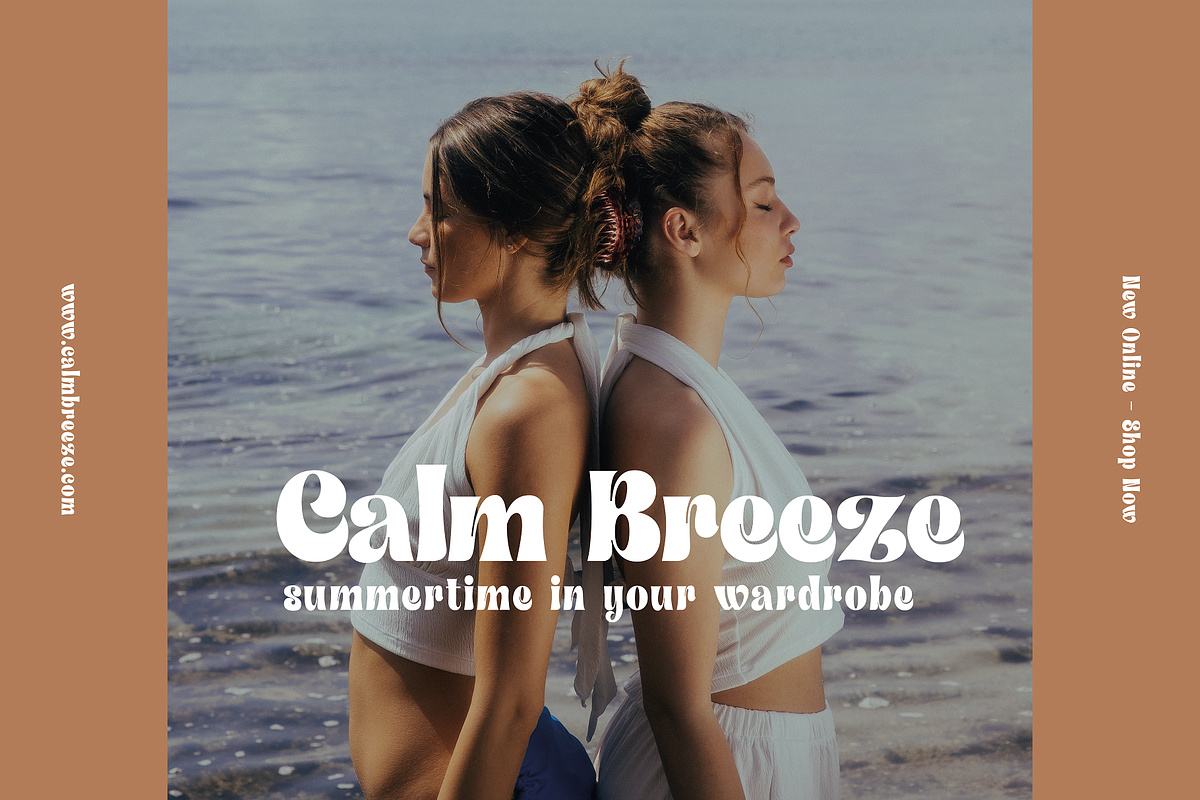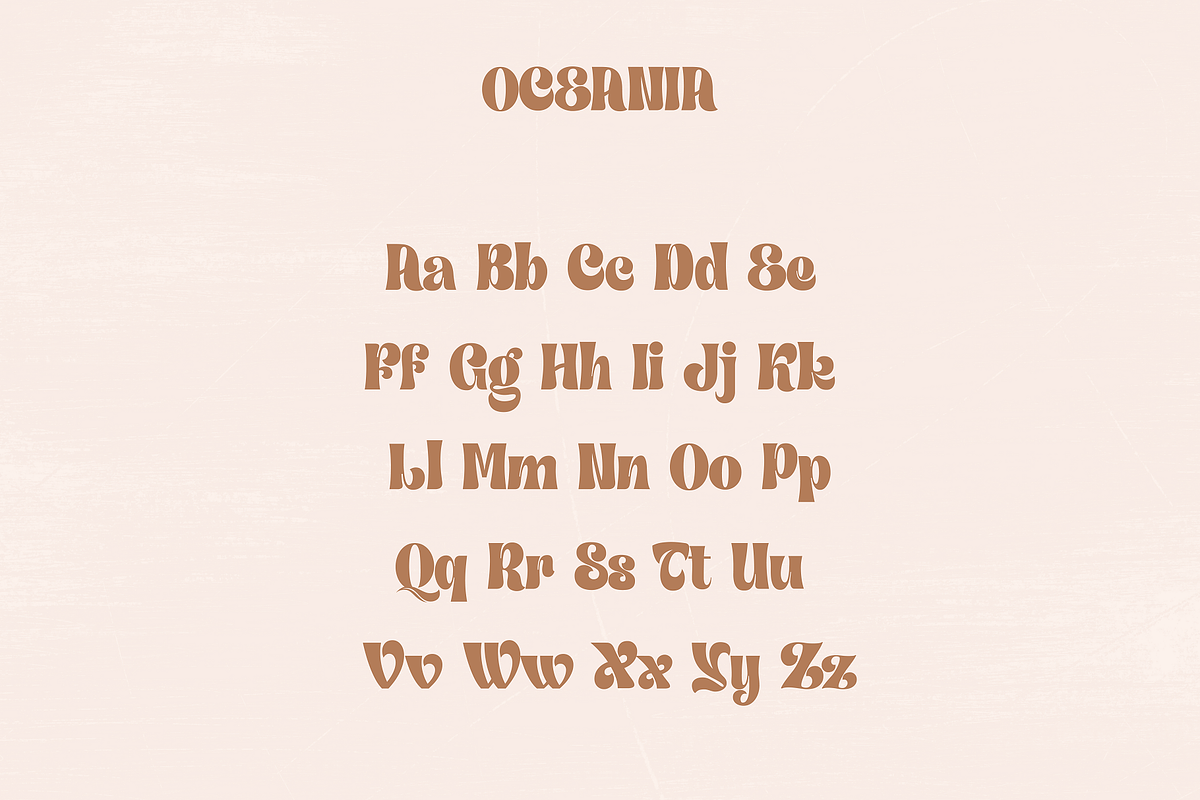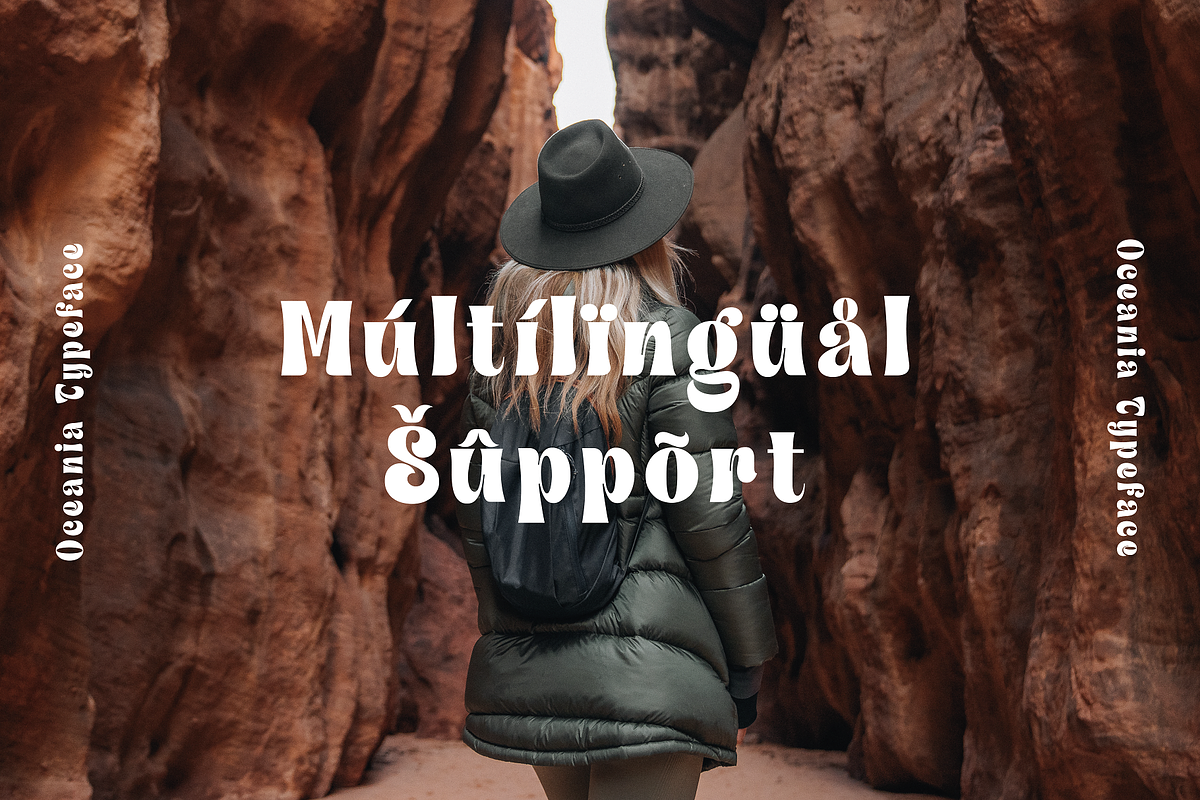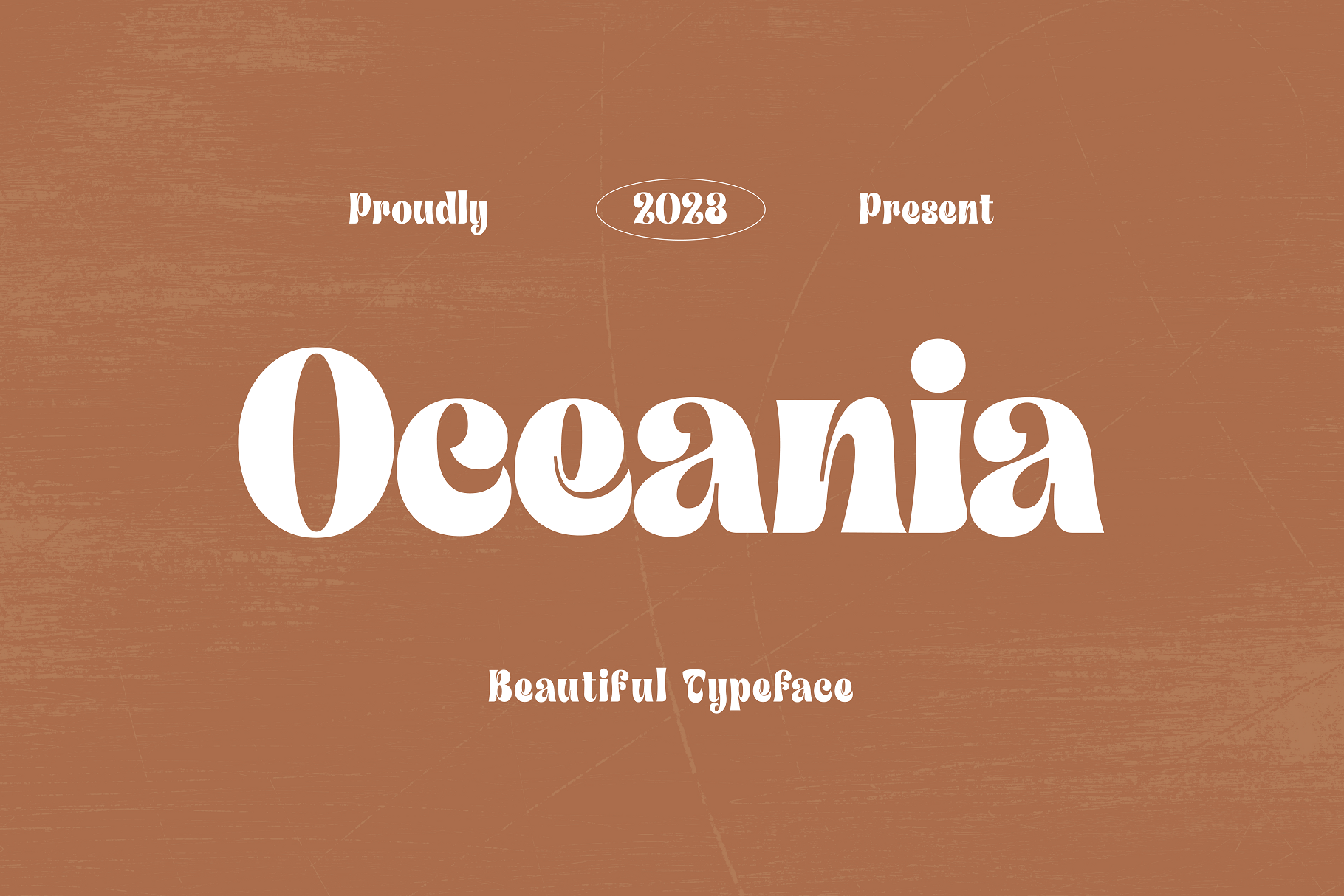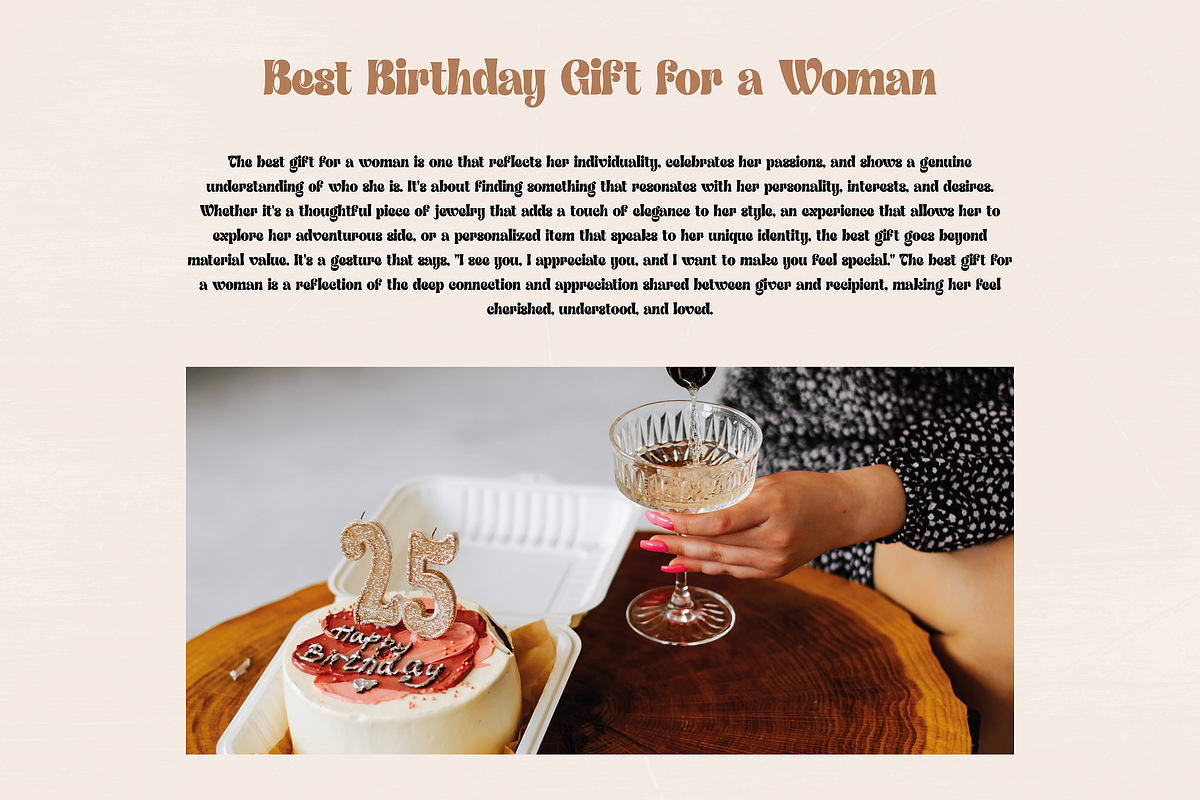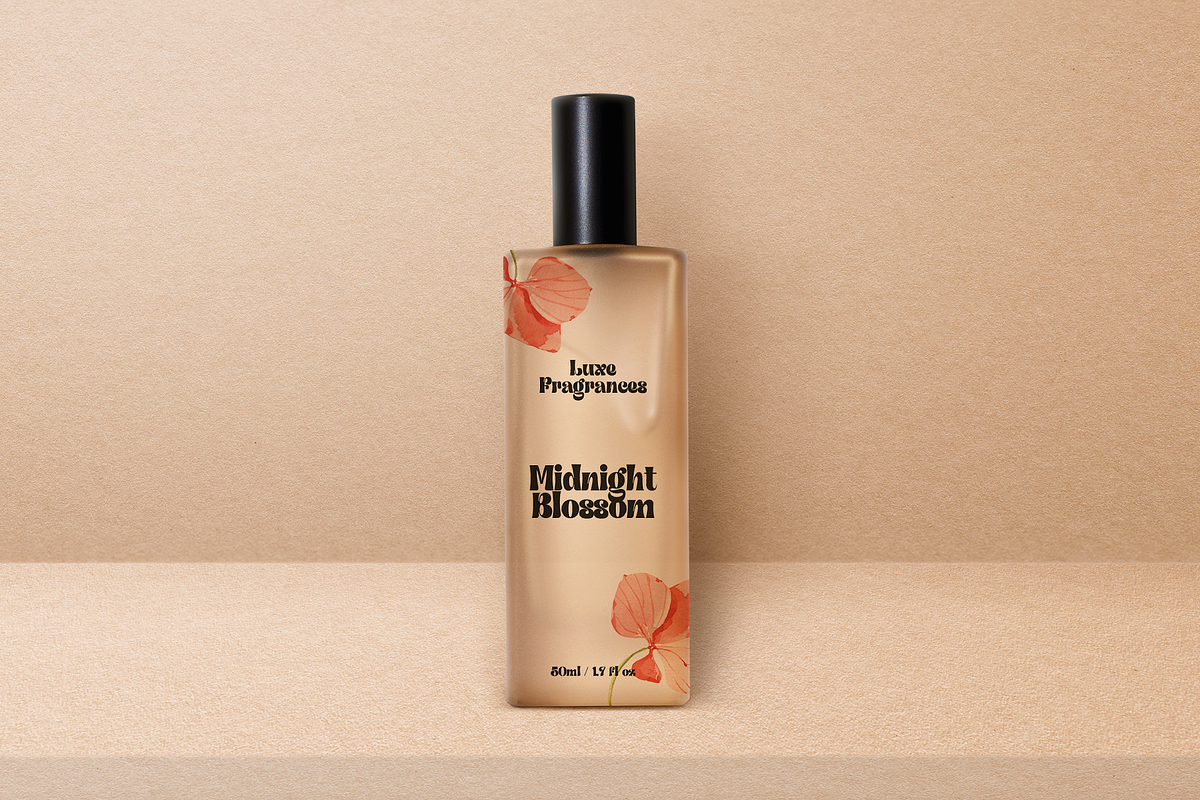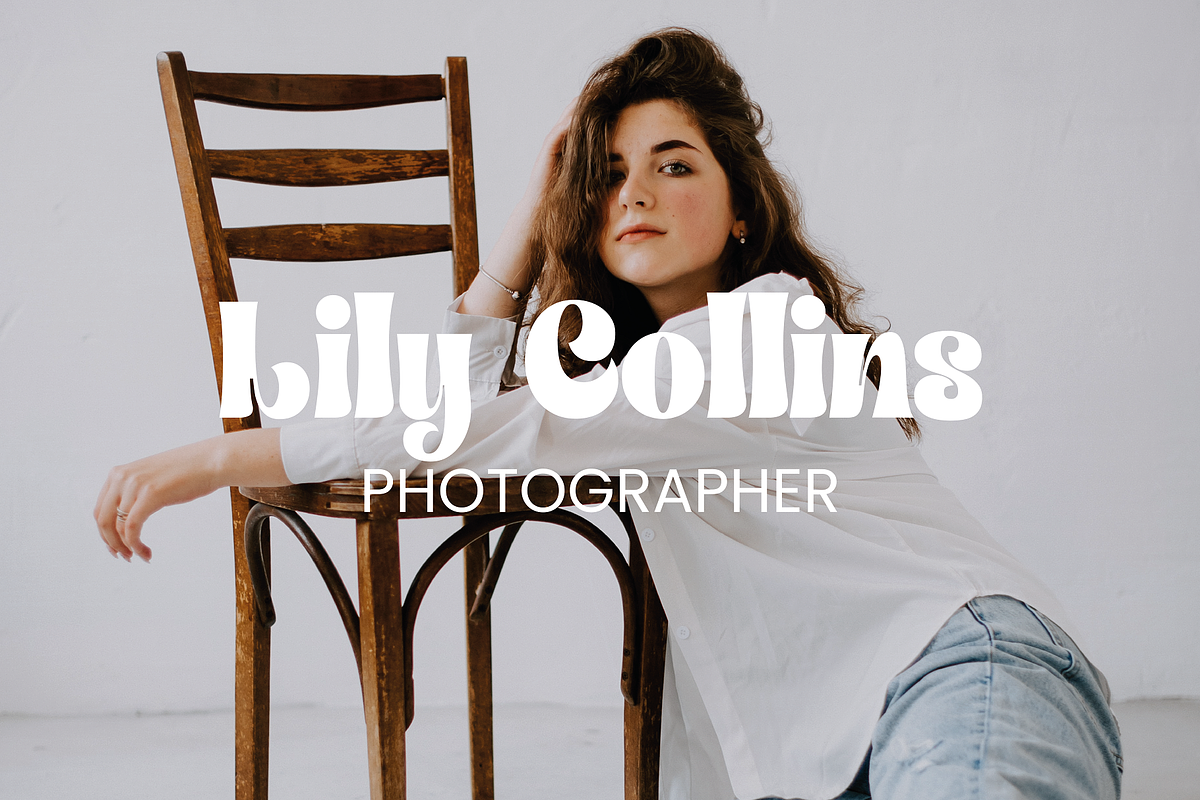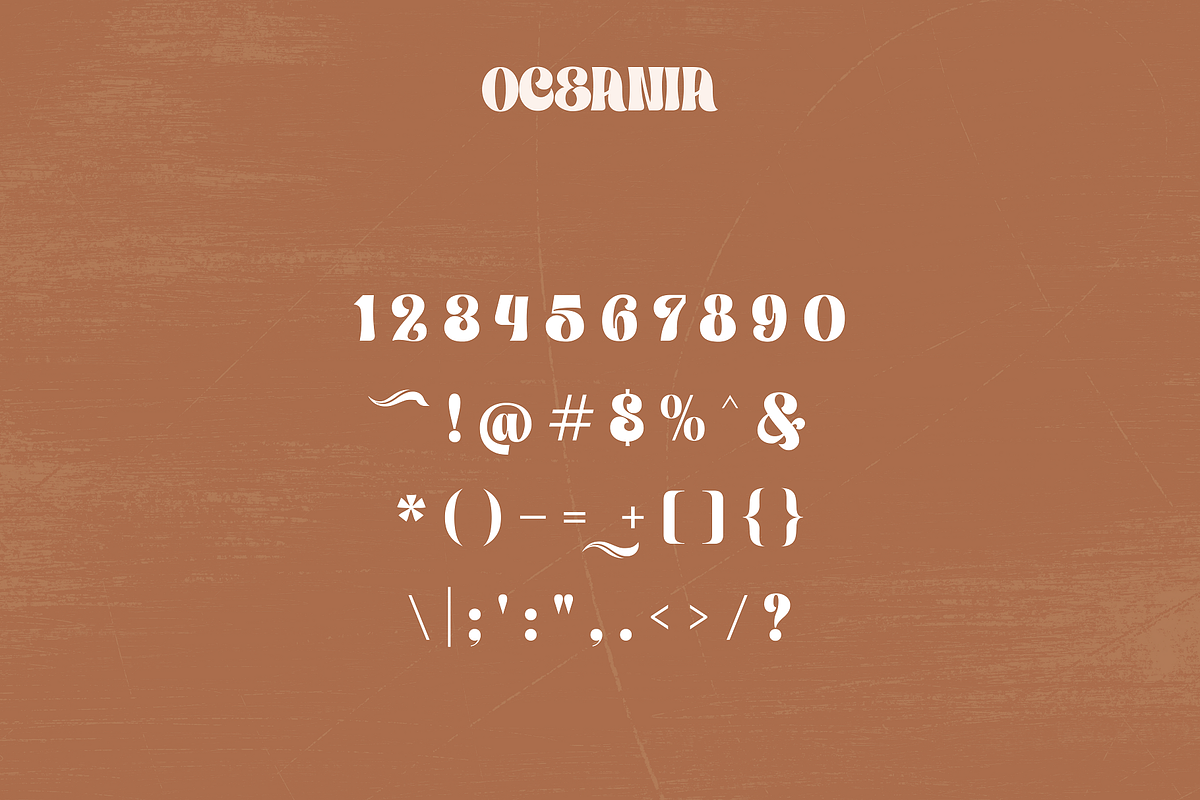
Oceania - Mesmerizing Typeface
Prepare to be swept away by the mesmerizing allure of Oceania, the font that will transport your designs to a world of elegance and beauty. Say goodbye to dull and uninspiring typography because Oceania is here to revolutionize your creative endeavors.
With its graceful curves and enchanting letterforms, this gorgeous curvy typeface exudes sophistication and charm. Each letter is meticulously crafted to perfection, forming a harmonious dance of curves that will captivate the eyes of your audience. Whether you're designing wedding invitations, crafting stunning logos, or adding a touch of class to your branding materials, Oceania is the secret weapon that will make your designs shine.
Dive into the depths of this exquisite font and let its timeless elegance elevate your creations to a whole new level of visual splendor. Get ready to make waves in the design world with the irresistible allure of Oceania!